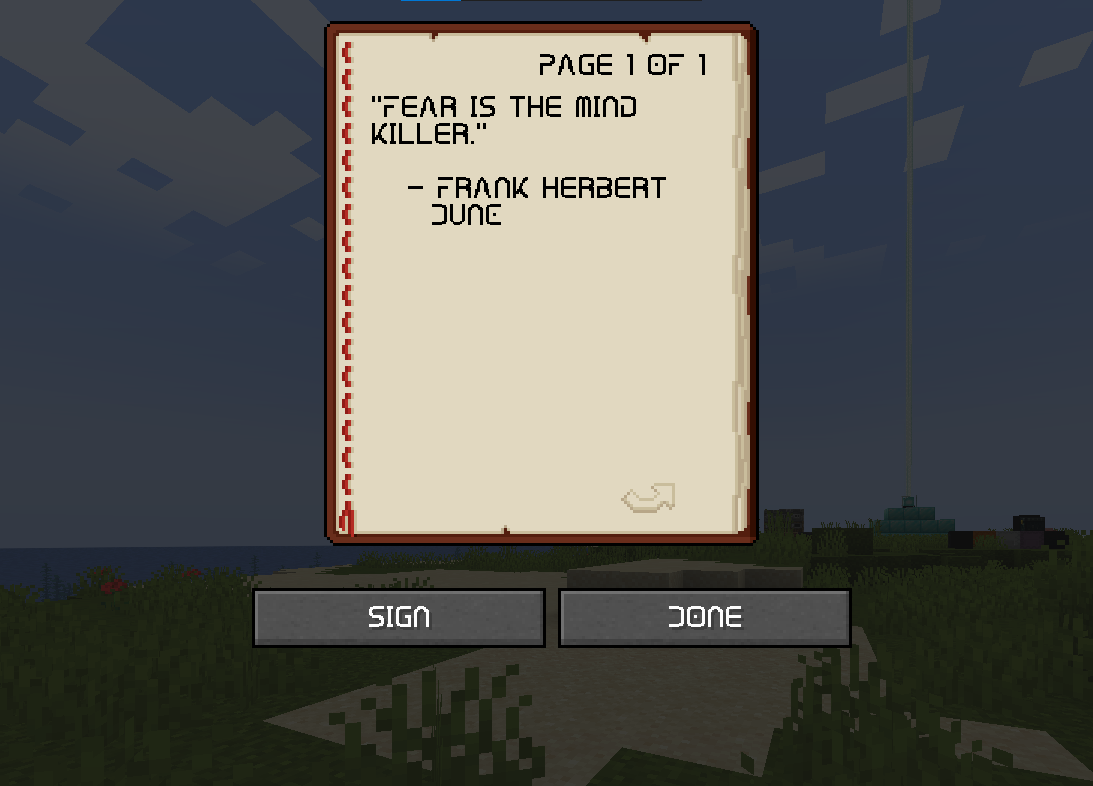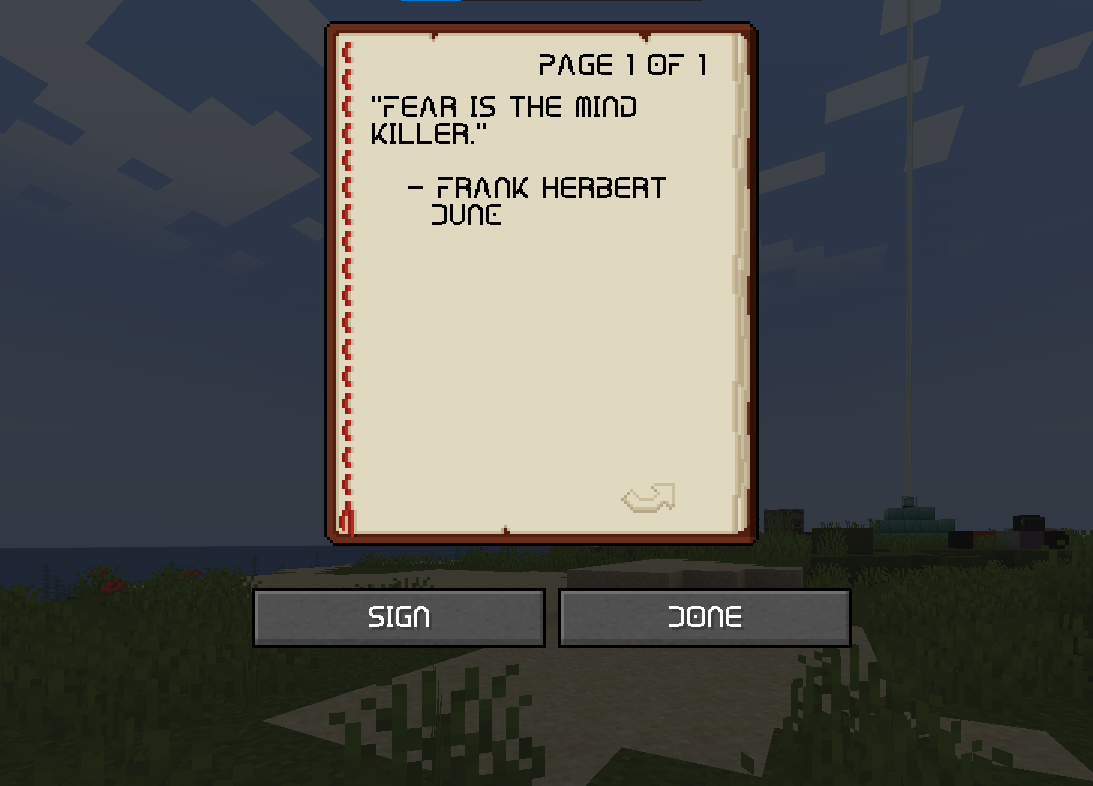
(Skia's) Dune Font
A font inspired by the DUNE franchise because why not.
A 16x font inspired by the DUNE franchise (LOVE THEM MOVIES). This is also my FIRST ever resource pack and project O~O.
Font in-game in a Book and Quill
Font in-game in chat